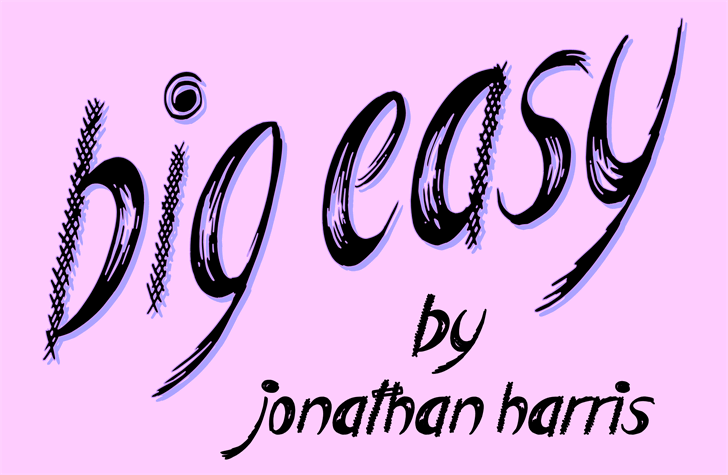
Free Big Easy Font
Today we're glad to feature this free big easy font. Font Space has created this amazing and beautiful font. This is absolutely fancy font so you can easily make world-class designs.